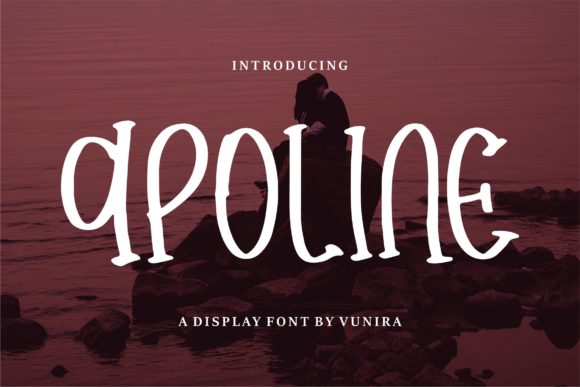
The Apoline Font: A Cute and Friendly Serif for Your Designs
As a designer, I’ve had my fair share of frustrating moments when searching for the perfect font for a project. I recall working on a children’s book design, wanting a font that was both playful and readable, but struggling to find one that fit the bill. That’s when I stumbled upon the Apoline font, and it instantly became my go-to choice for any project that requires a lovely touch.
What Makes Apoline Font So Special?
Apoline is a cute and friendly serif font that’s perfect for cartoon-related designs, children’s games, or any creation that needs a touch of whimsy. Its unique charm and character make it an excellent choice for designers, crafters, and creative hobbyists alike.
What I Love About Apoline Font
- ✨ Cute and playful design: Apoline’s serif font has a distinctive, hand-drawn feel that’s perfect for creating engaging and child-friendly designs.
- ✅ High readability: Despite its playful nature, Apoline remains highly readable, even at smaller font sizes.
- 💕 Emotional connection: The font’s friendly and approachable design helps create an instant emotional connection with your audience.
While Apoline is an excellent font, it’s not without its quirks. For instance:
- 🤔 Limited use in formal contexts: Due to its playful nature, Apoline might not be the best choice for formal or professional designs.
- ⚠️ Occasional kerning issues: As with any font, you might encounter some kerning issues, especially when using it at larger font sizes.
The Backstory Behind Apoline Font
While the origins of Apoline font are unclear, it’s likely that it was designed with the intention of creating a friendly and approachable serif font. Perhaps the designer wanted to create a font that would bring a smile to children’s faces or make reading more enjoyable. Whatever the inspiration, Apoline has become a beloved font among designers and crafters.
Q: Is Apoline font suitable for body text?
A: While Apoline is highly readable, it’s primarily designed for headings and titles. You may want to pair it with a more traditional serif font for body text.
Q: Can I use Apoline font for children’s book design?
A: Absolutely! Apoline’s playful and friendly design makes it an excellent choice for children’s book design, educational materials, and other kid-friendly projects.